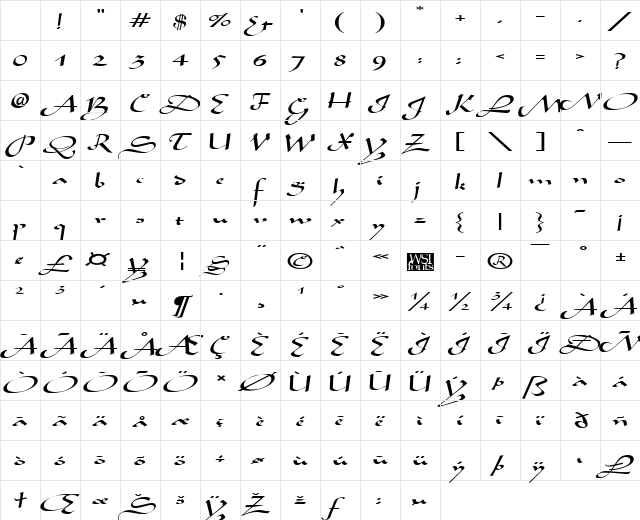
Complete AladdinExpanded Regular glyph index. Displaying only characters natively supported by AladdinExpanded Regular font.
AladdinExpanded is a composed and adaptable typeface that performs quietly and consistently across a wide range of design contexts.